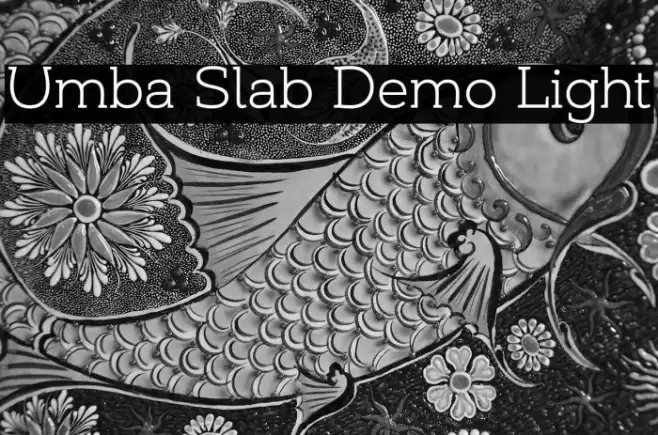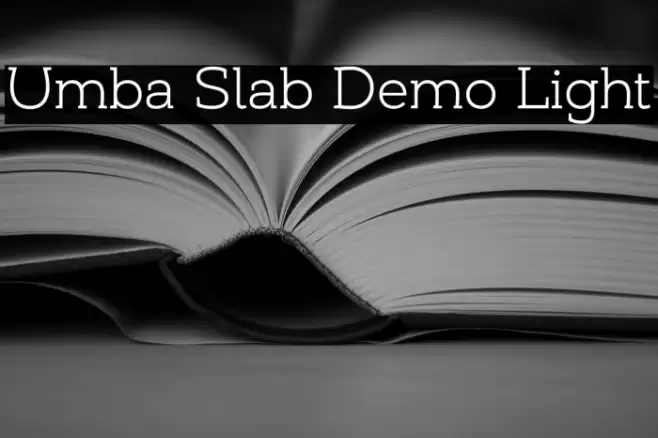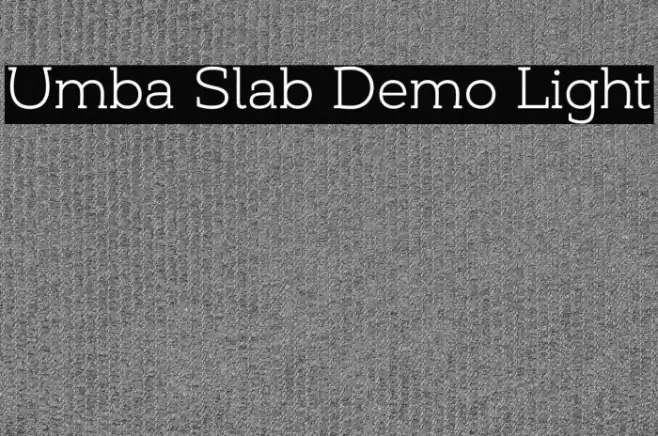
Umba Slab Demo Light Font
Umba Slab Demo Light Description
This font features a clean and modern slab serif design with a light weight, offering a contemporary feel while maintaining readability. The characters are well-defined with a slight geometric influence, providing a balanced and structured appearance. The uppercase letters are bold and commanding, while the lowercase letters maintain a softer, more approachable look. The numerals are consistent with the overall style, ensuring clarity and uniformity. The special characters are distinct and integrate seamlessly with the rest of the font, making it versatile for various applications.
A modern, light slab serif font with geometric influences from Uncategorized fonts.
- Proposed Projects: Ideal for branding, editorial design, and web design projects where a modern and clean aesthetic is desired.